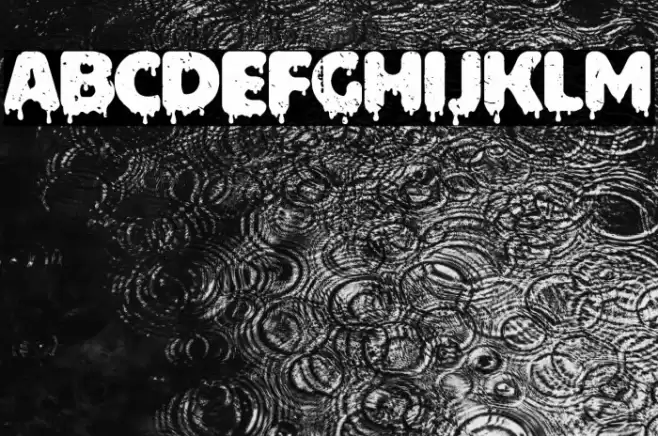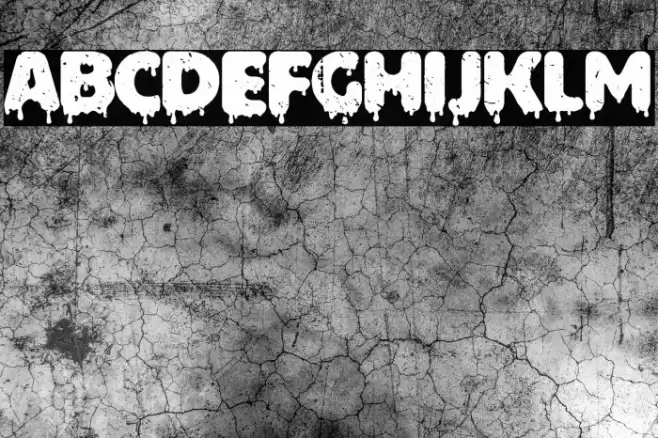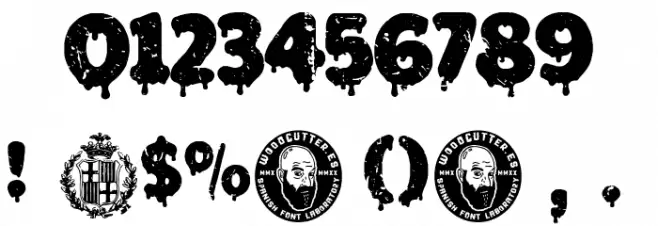
Barcelona Scared Font
Barcelona Scared Description
This font features a bold and dramatic style with a dripping effect that gives it a spooky, horror-themed appearance. The characters are thick and rounded, with irregular edges that mimic the look of melting or dripping liquid. This design choice adds a sense of movement and chaos, making it ideal for themes that require a touch of the eerie or unsettling. The uppercase and lowercase letters maintain consistency in style, with numerals and special characters also following the same dripping motif. This font is perfect for Halloween-themed projects, horror movie posters, or any design that needs a bold, eye-catching headline with a touch of fright.
- Proposed Projects: Ideal for Halloween posters, horror movie titles, spooky event invitations, and themed merchandise.